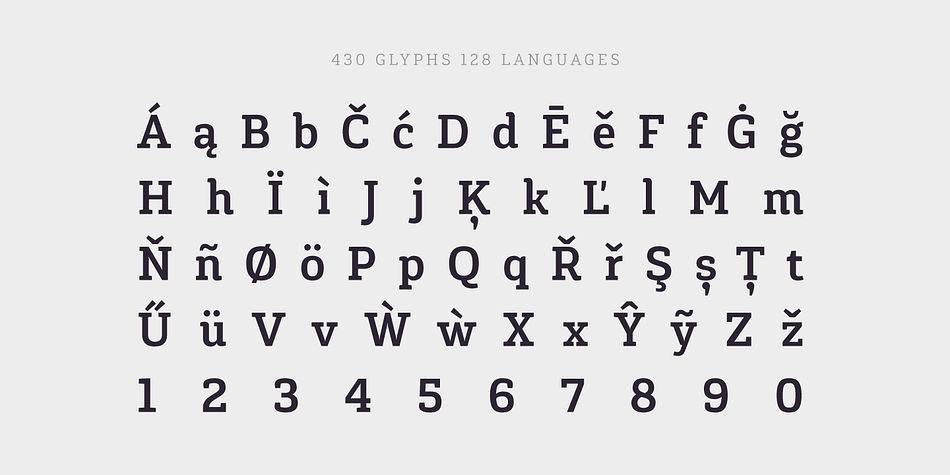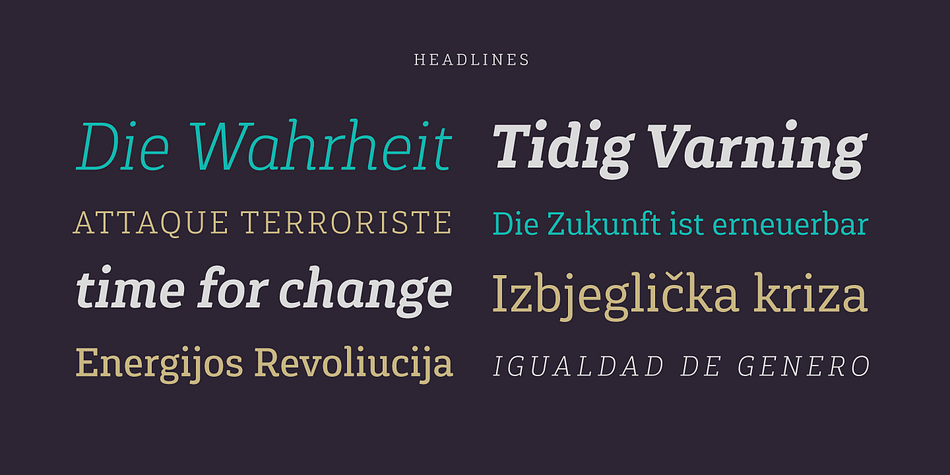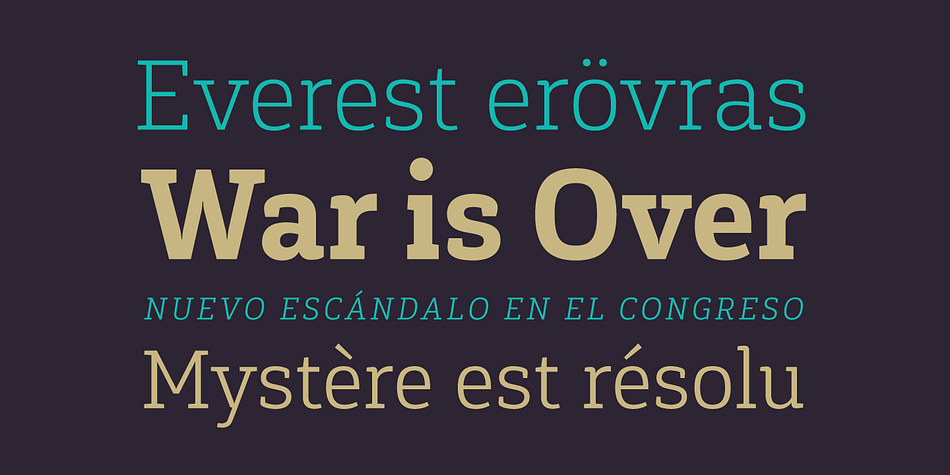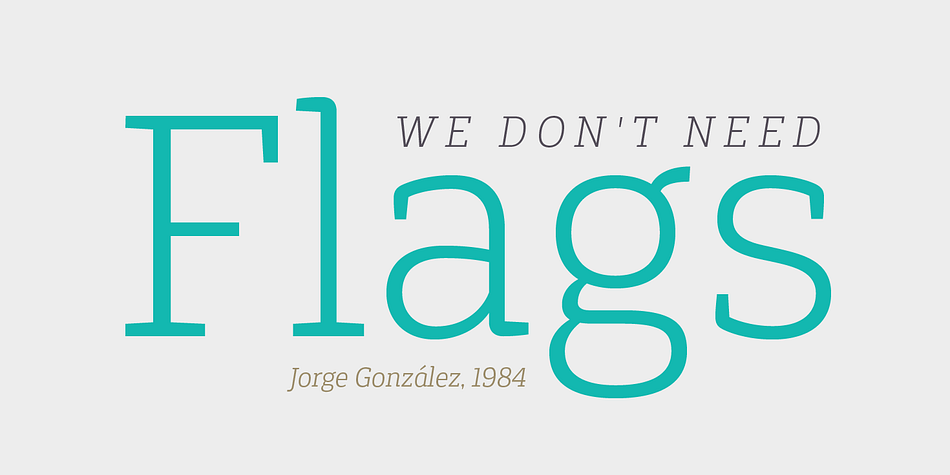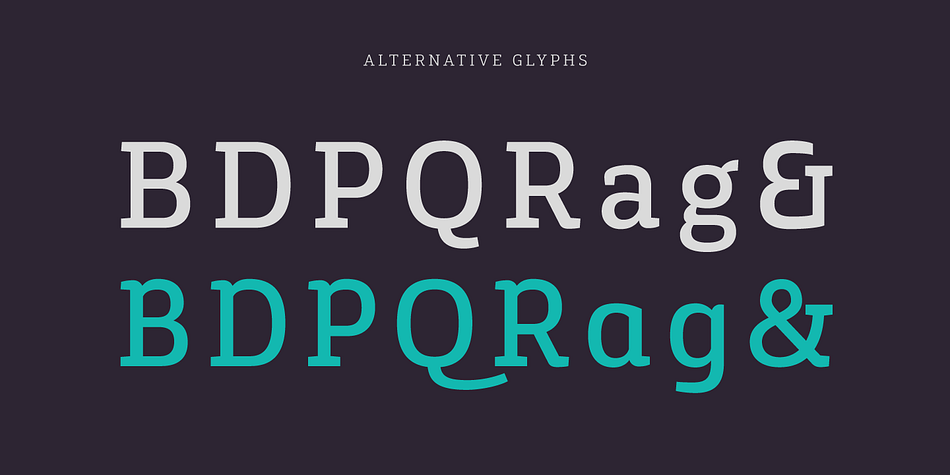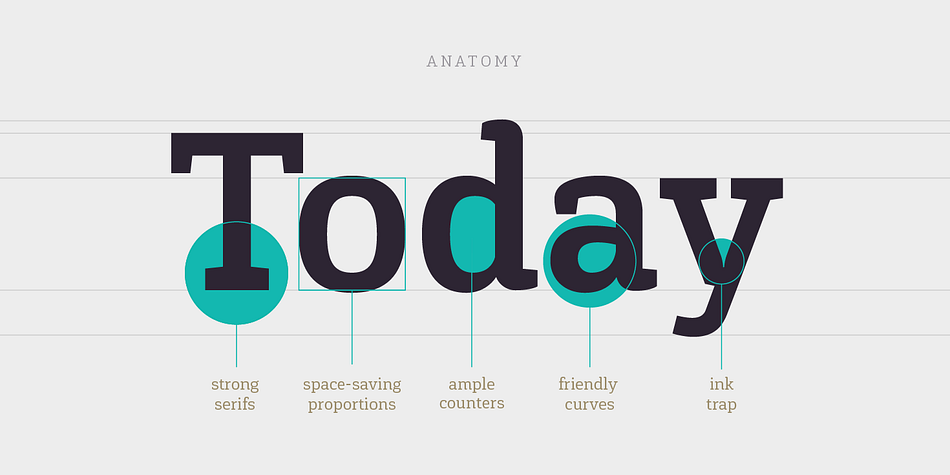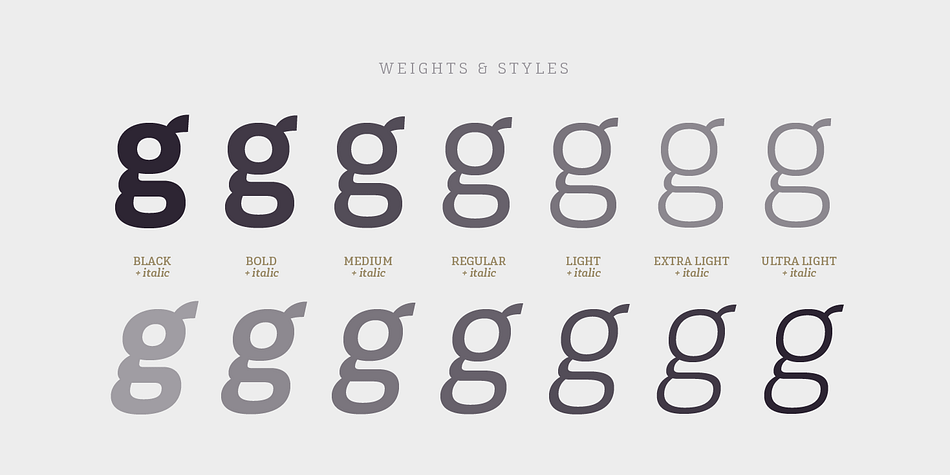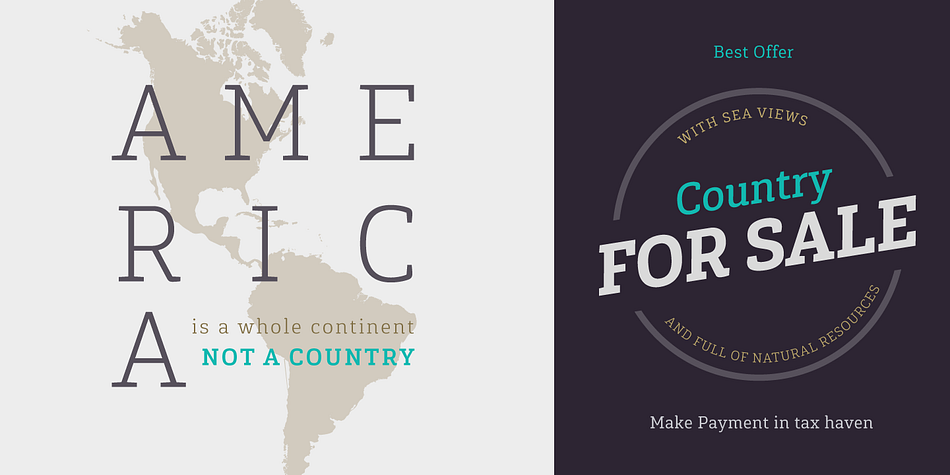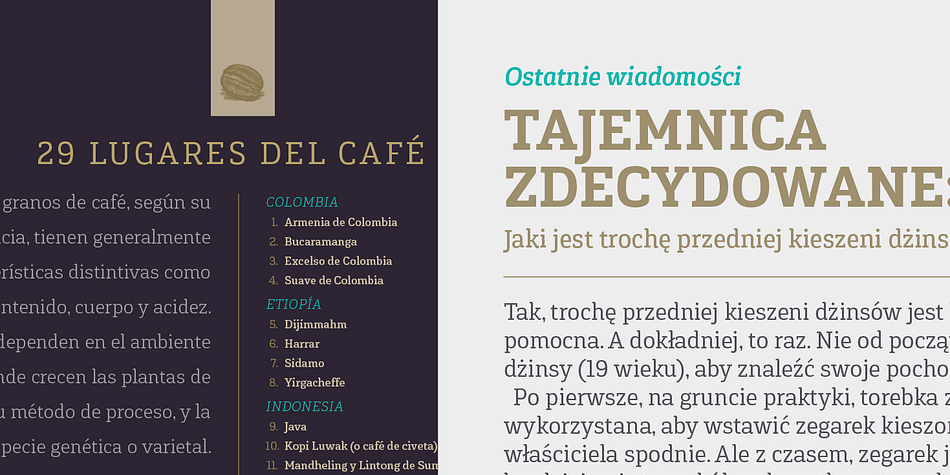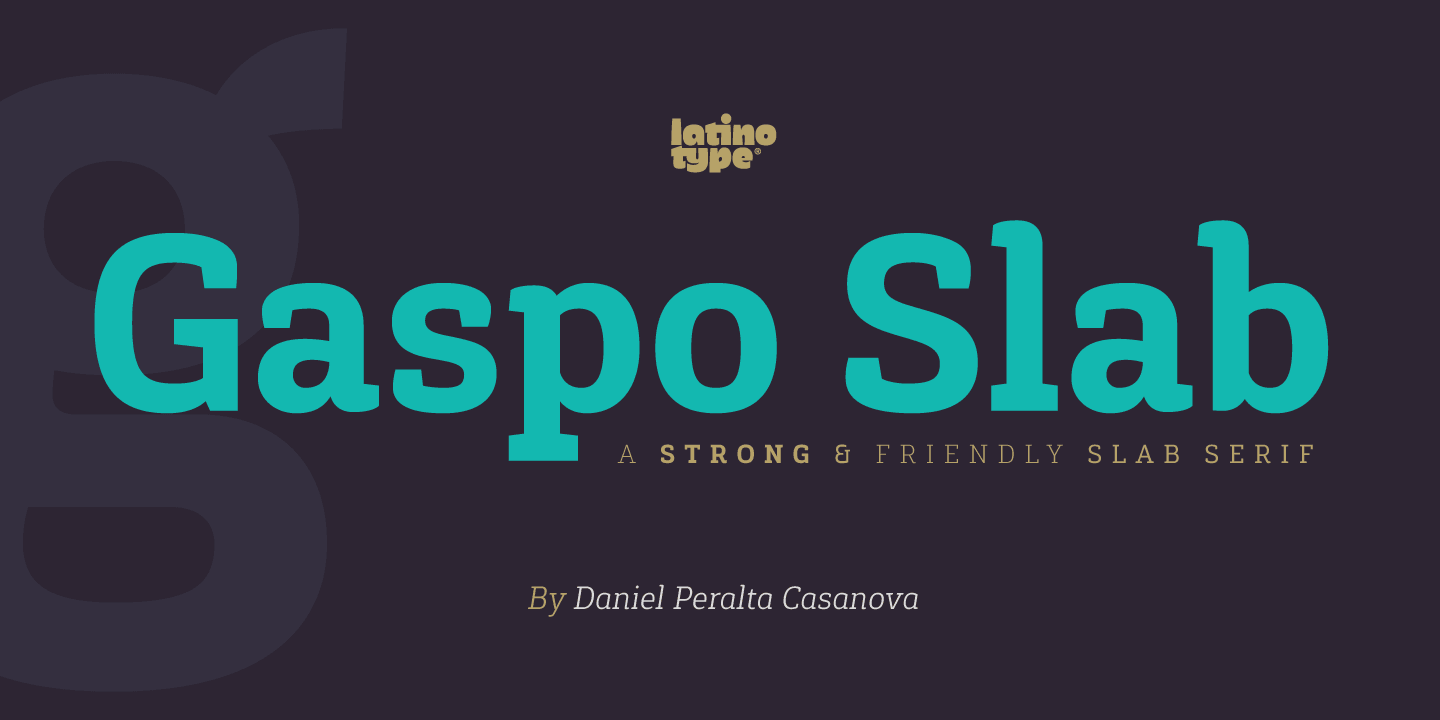
Designed by Daniel Peralta Casanova, Gaspo Slab is a slab serif font family. This typeface has fourteen styles and was published by Latinotype.
Gaspo Slab is a fresh slab serif typeface that features aesthetically pleasing curves, strong serifs, ample counters, humanist proportions and ink traps. The result is a very functional font with a contemporary design and highly readable at small sizes.
Gaspo Slab consists of 7 weights, from Ultra Light to Black, with matching italics. This family comes with a 434-character set that includes European diacritics, tabular figures, alternative characters, numerators and fractions, making it possible to use the font in 128 different languages.
The font is well-suited for headlines, medium-length text, magazines, newspapers, advertising, corporate use and product design.